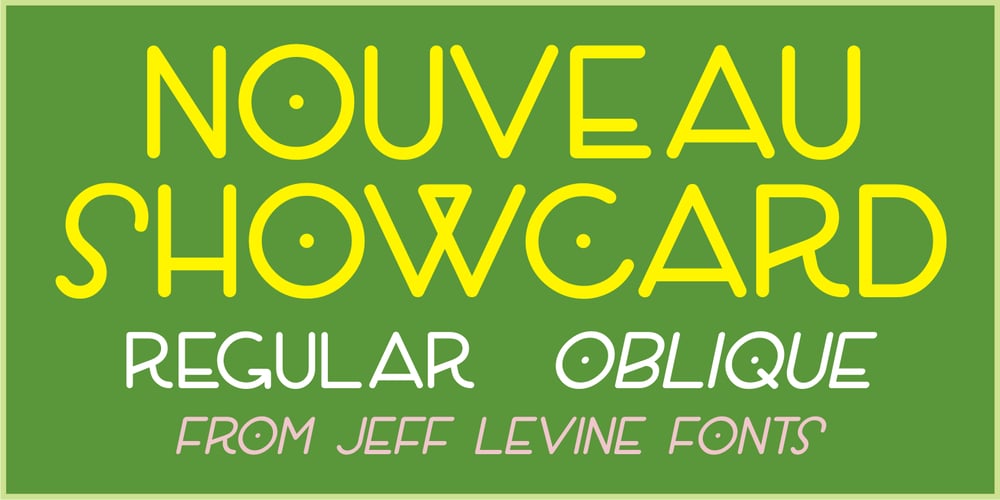
Nouveau Showcard JNL Font Family was designed by Jeff Levine and published by Jeff Levine. Nouveau Showcard JNL contains 2 styles and family package options. The 1920 song “Noah’s Wife Lived a Wonderful Life (‘Cause Noah Had to Stay Home)” is another example of one of those overly-worded song titles from early 20th Century composers. What’s more important for type enthusiasts is that the title was hand lettered with a round nib pen in a slightly ragged Art Nouveau style. Cleaning up the ragged design, the end result became Nouveau Showcard JNL, which is available in both regular and oblique versions.